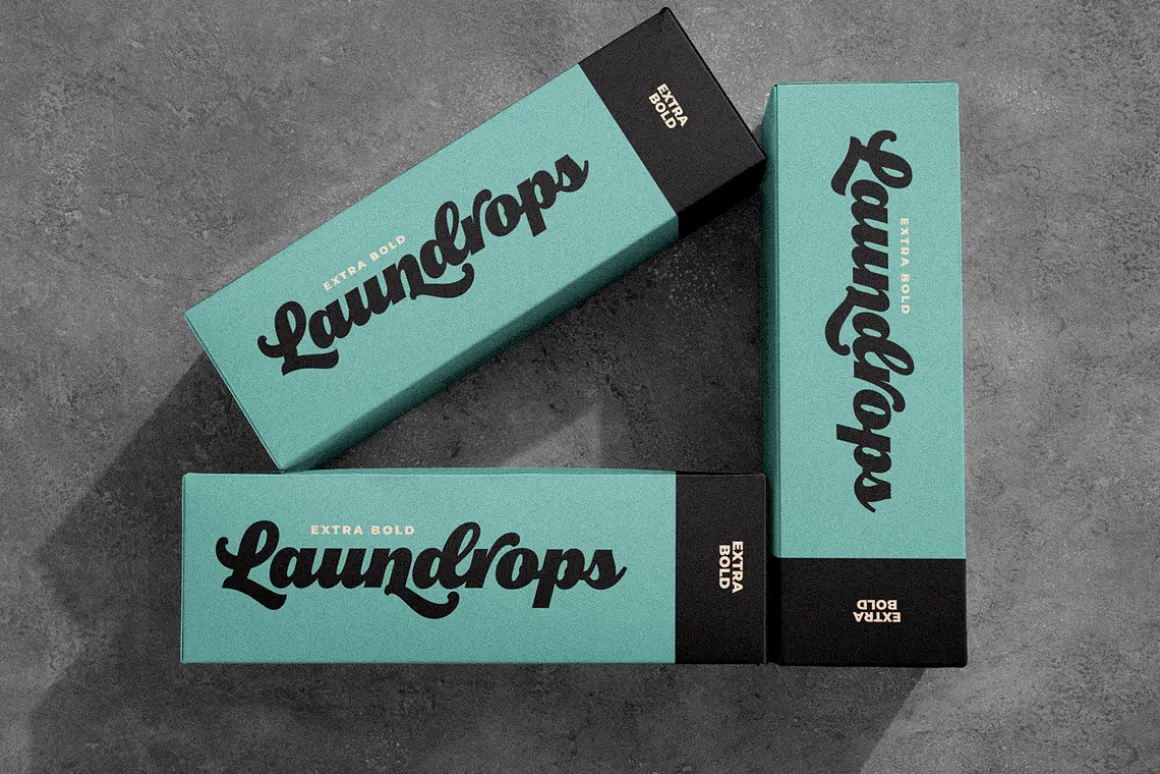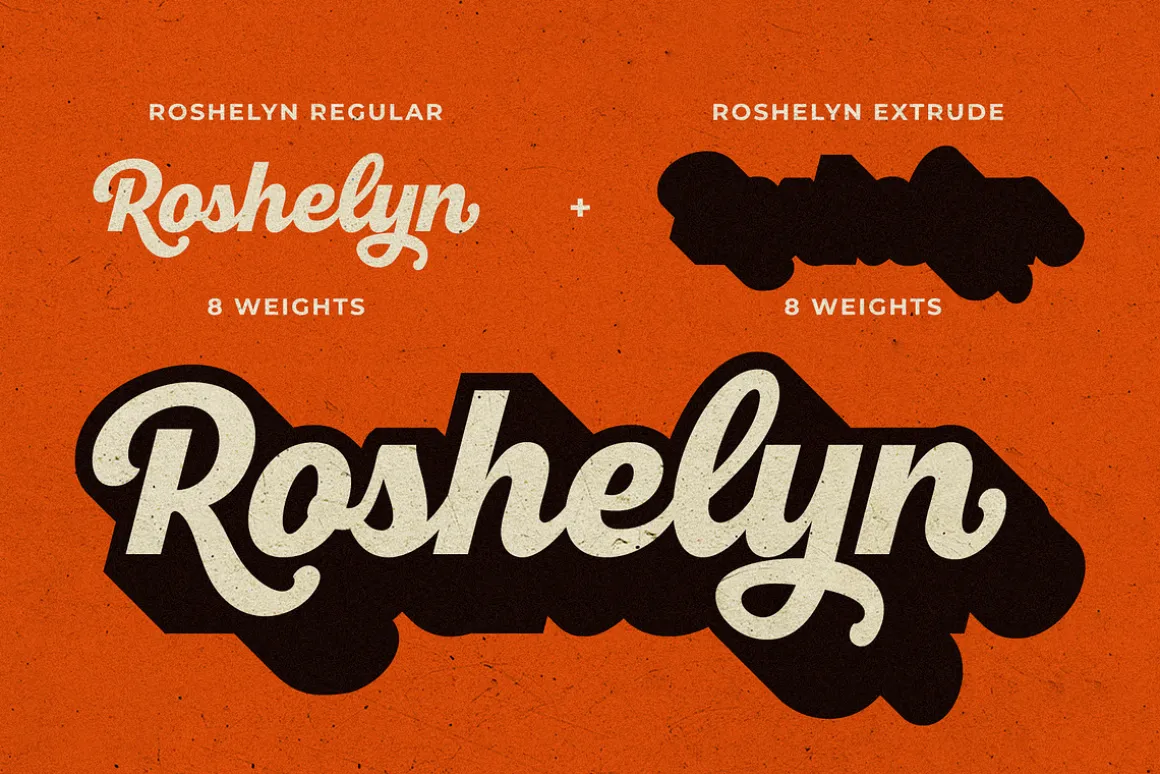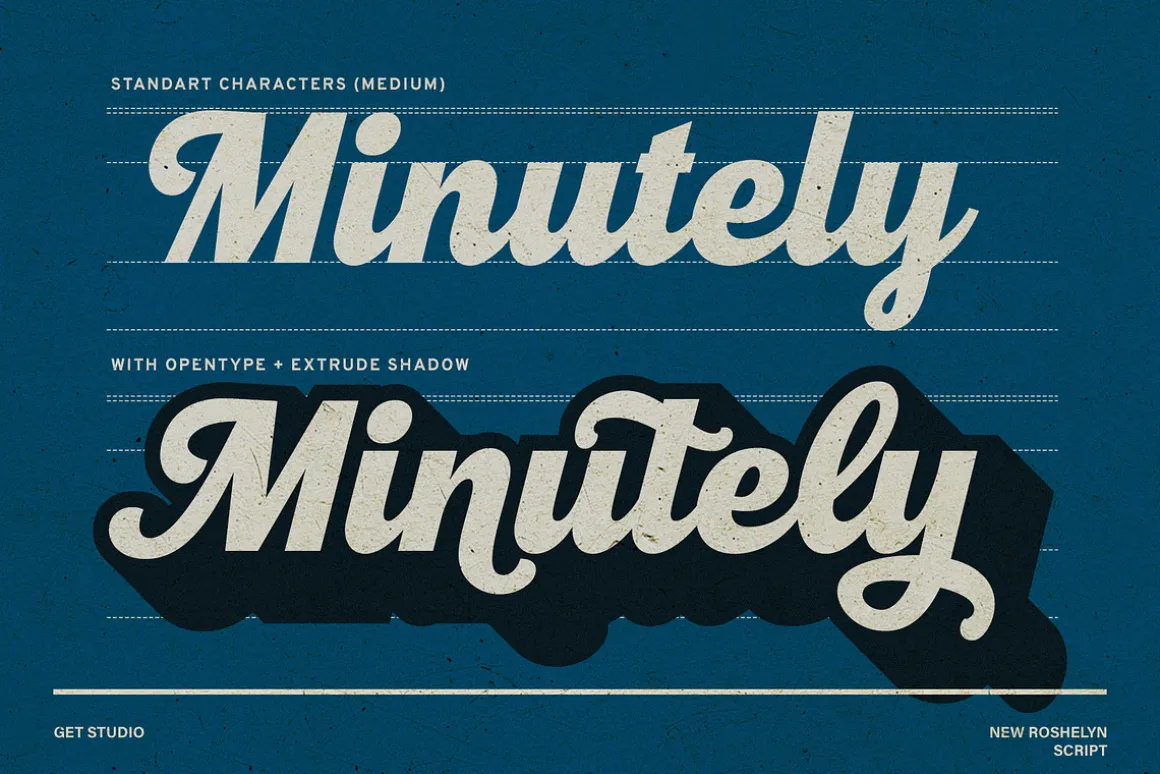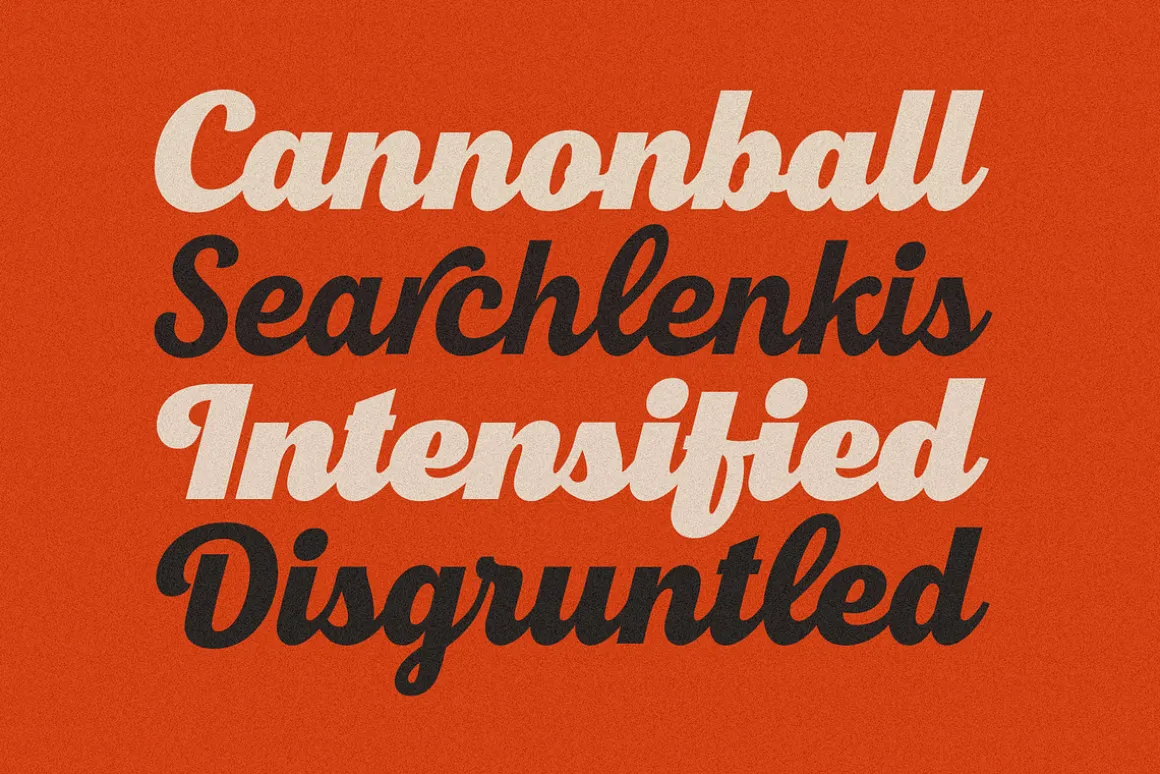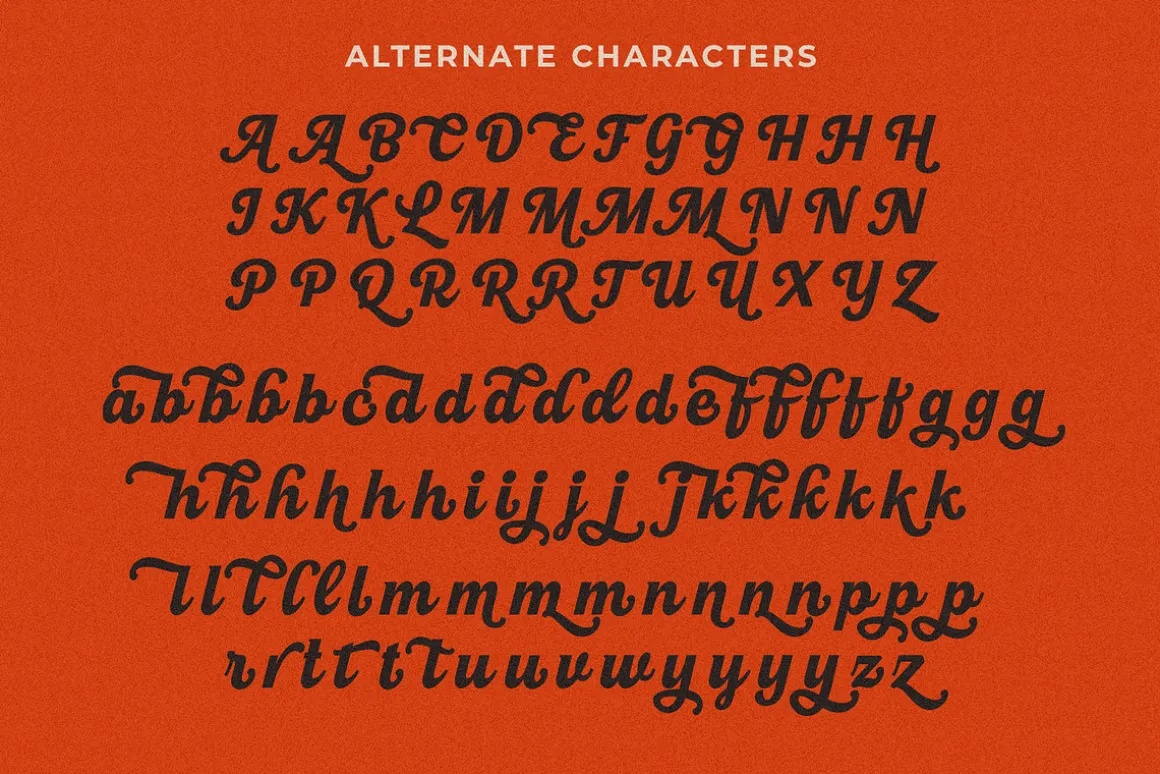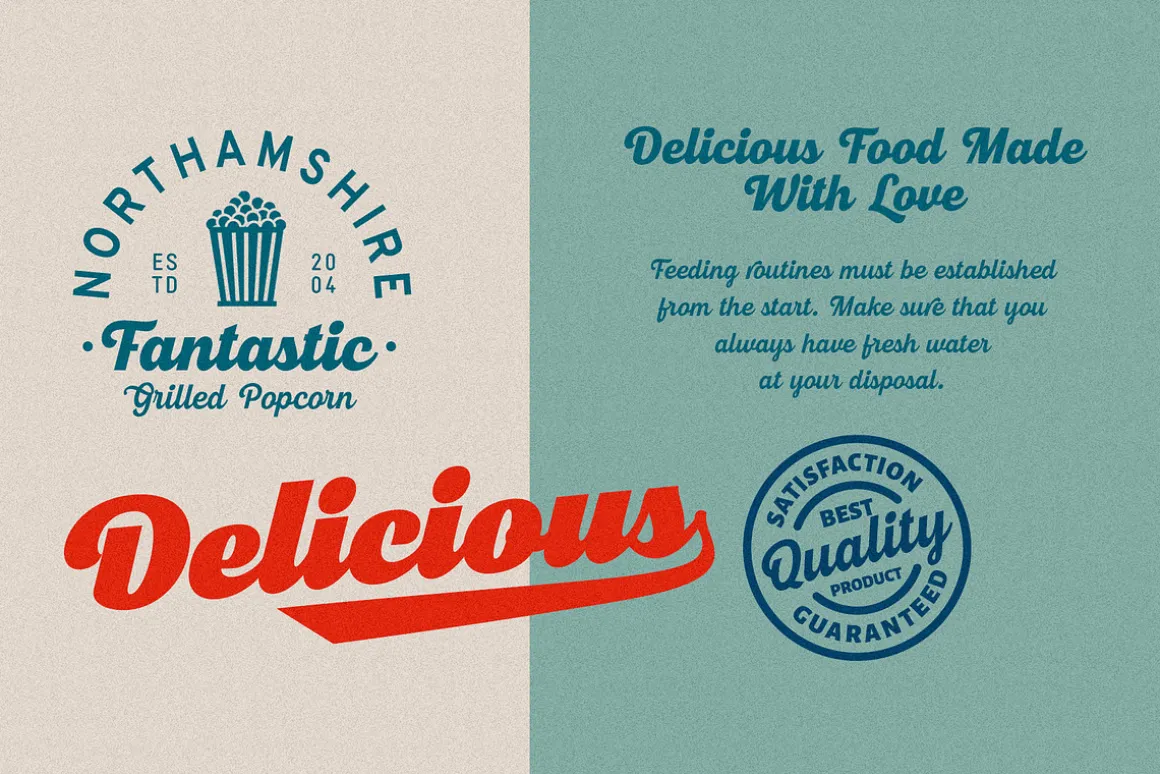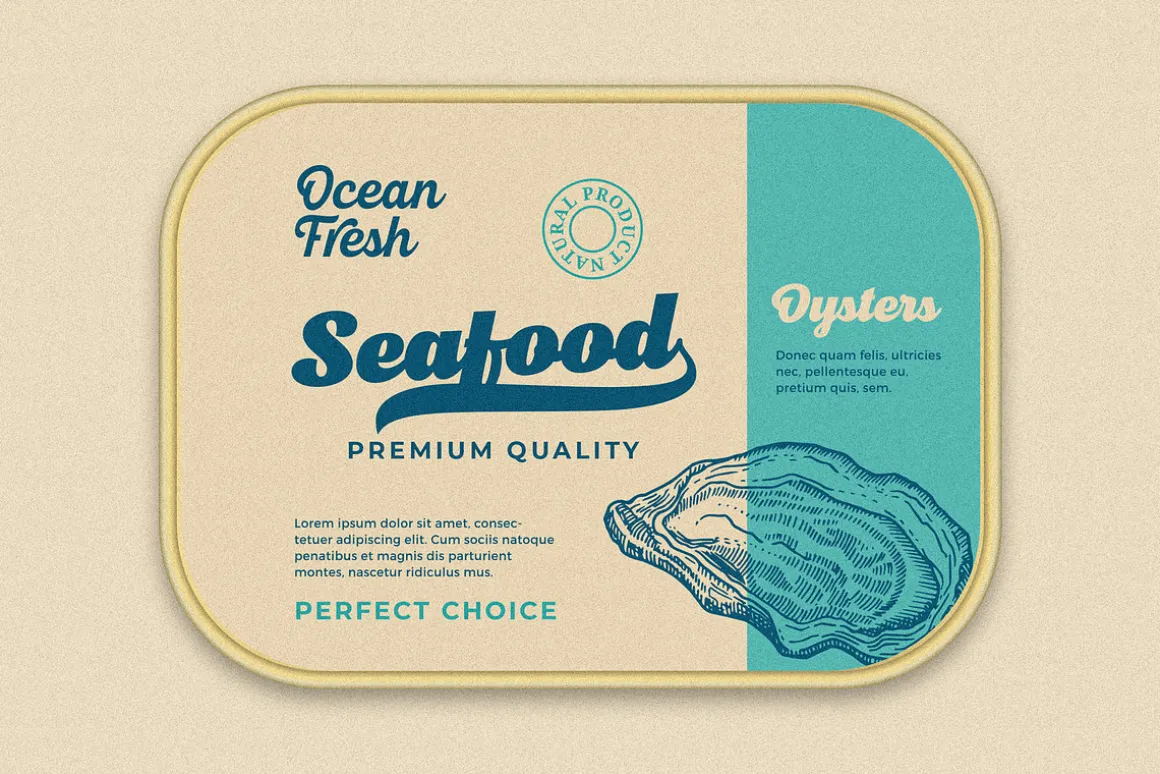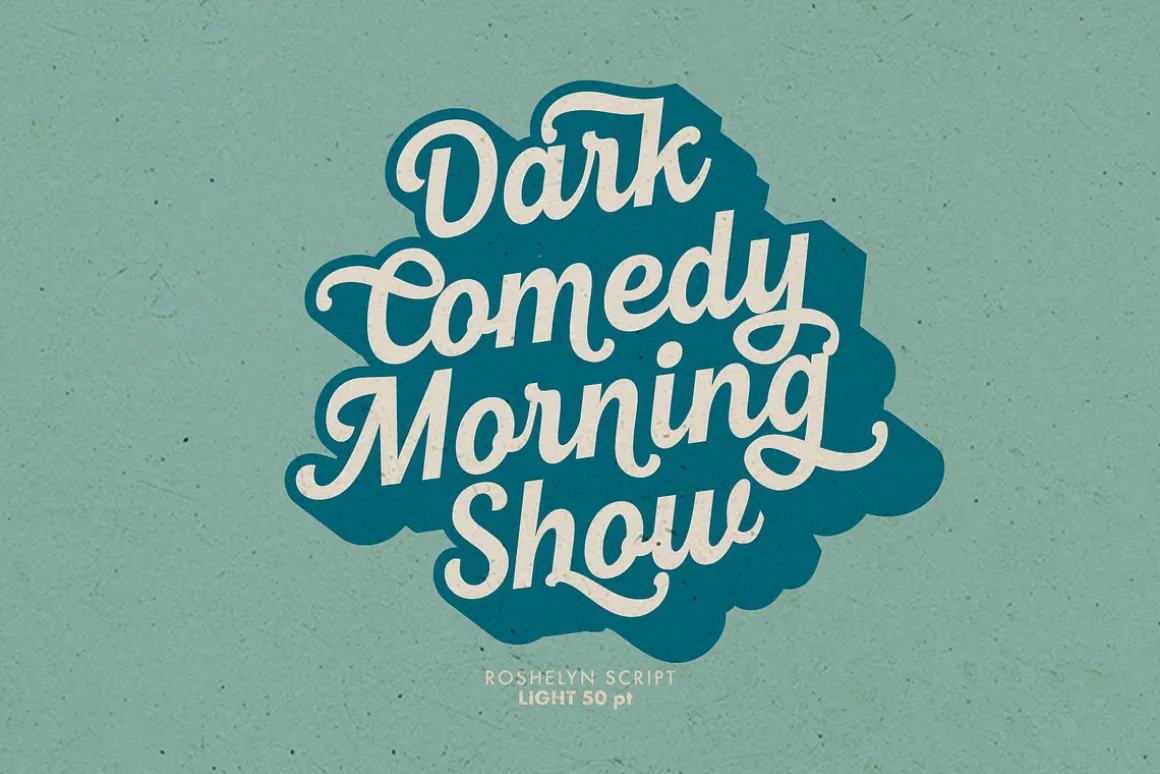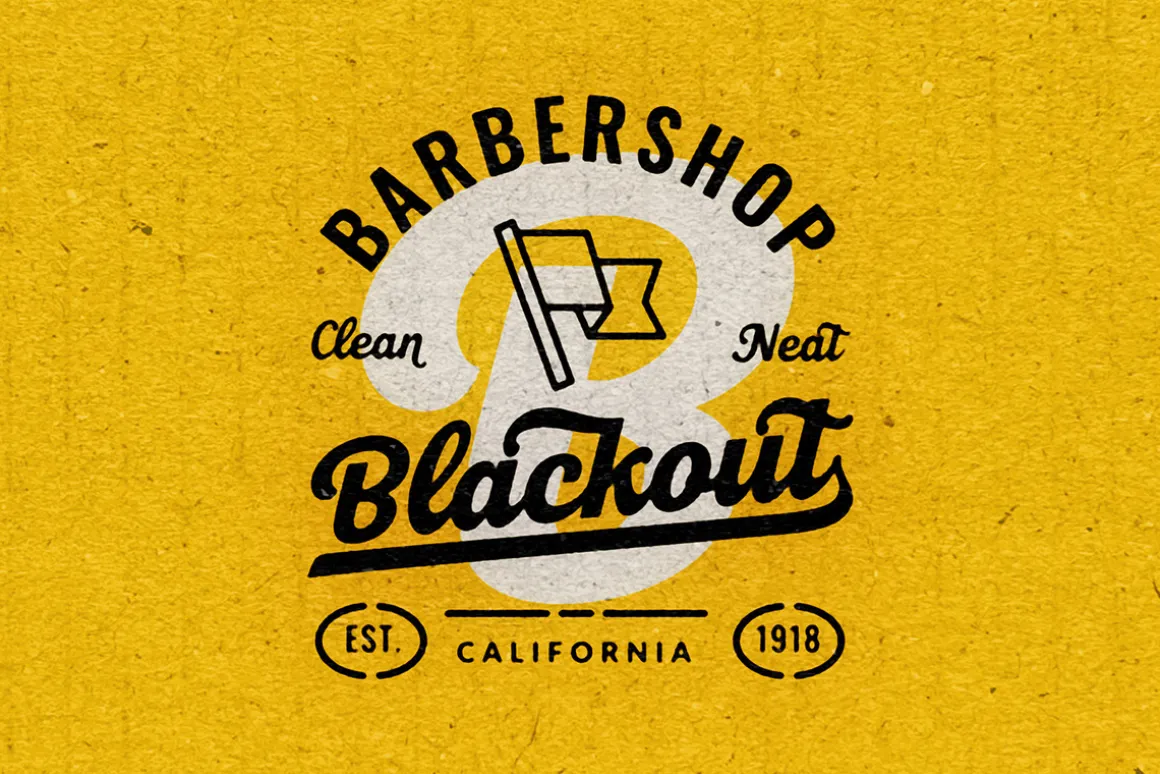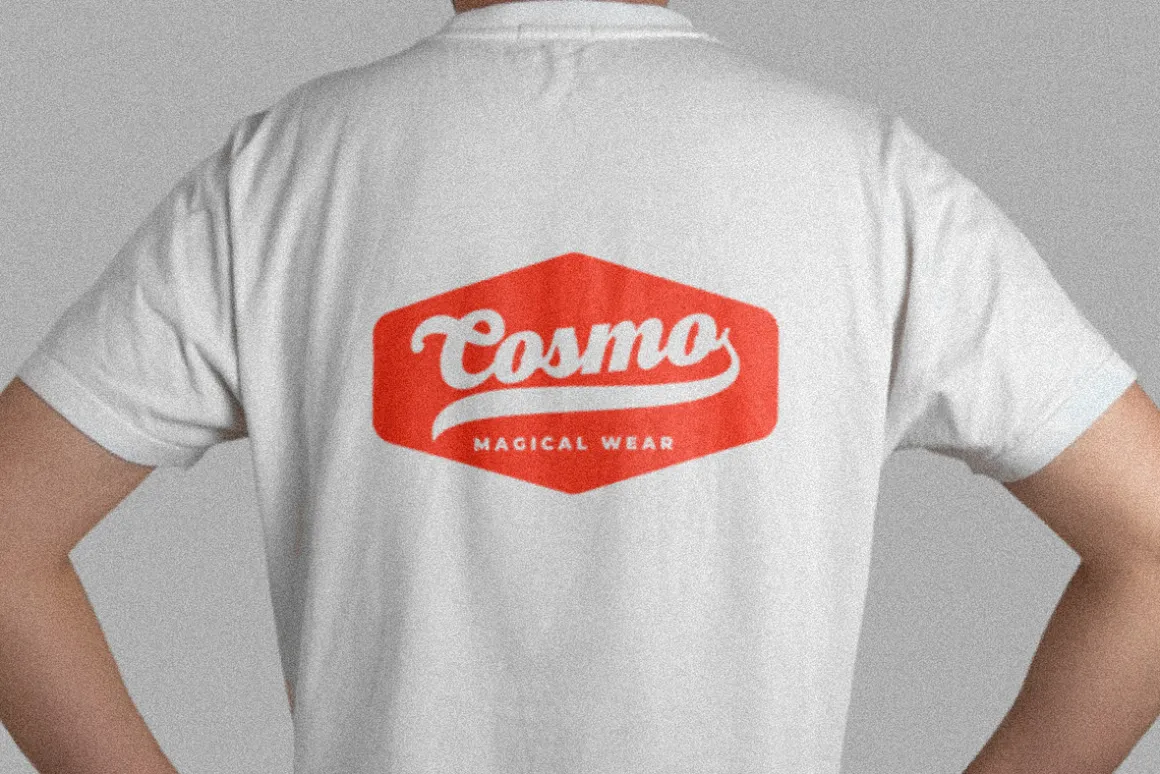
Introducing New Roshelyn Font Family, a new carefully crafted and nicely balanced curve on script typefaces with personality. Also with Extrude Version and Swash Tail make it look Retro. You can use it as a logo, badge, insignia, packaging, headline, poster, t-shirt/apparel, greeting card, wedding invitation, etc.
The flowing characters are ideal to make an attractive message. Mix and match New Roshelyn Script with a bunch of weights and alternative characters to fit your project.
The alternative characters in this font were divided into several OpenType features such as Stylistic Alternates, Stylistic Sets, and Ligature. The OpenType features can be accessed by using the OpenType program such as Adobe Illustrator, Adobe Photoshop, and Adobe InDesign.